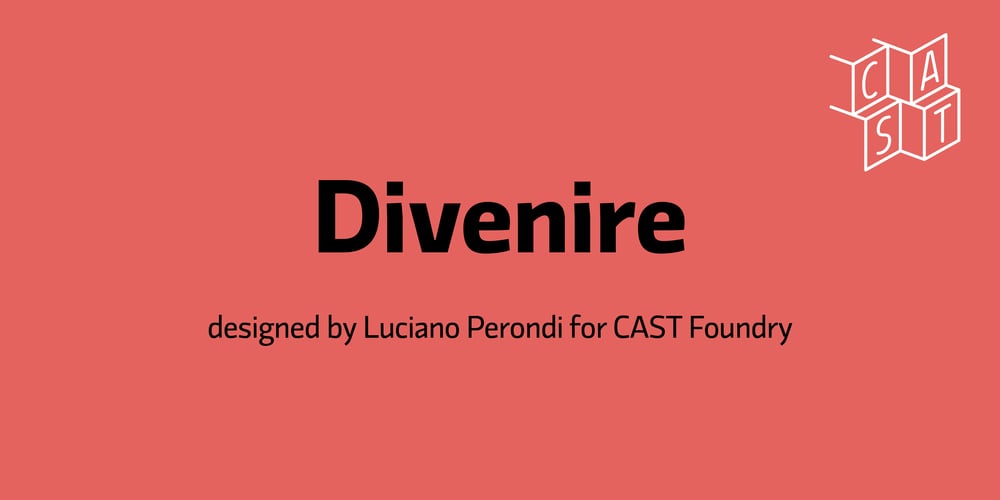
Divenire
Divenire font
Divenire Font Family was designed by Luciano Perondi and published by CAST. Divenire contains 12 styles and family package options. Divenire is derived from a custom typeface designed for the Partito Democratico (Italian Democratic Party), it is used in their political communication.It has variation of tension in its design, alternating curved and almost straight elements. The glyphlist includes many alternatives like a set of odd punctuation marks: the famous “interrobang” and others, starting from Hervé Bazin’s work.